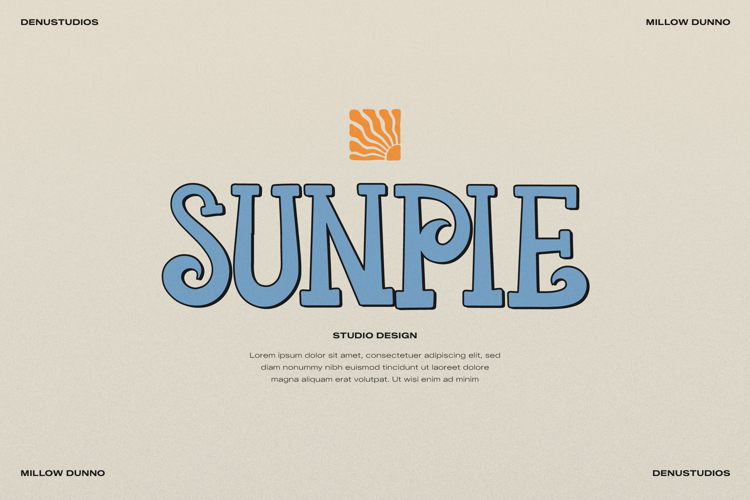
Millow Dunno Font
Millow Dunno | Playful Hand Drawn product packaging, mugs, quotes, posters, shopping bags, t-shirts, book covers, name card, invitation cards, greeting cards, label, photography, watermark, special events, and all your other lovely projects that need a Hand Drawn taste.